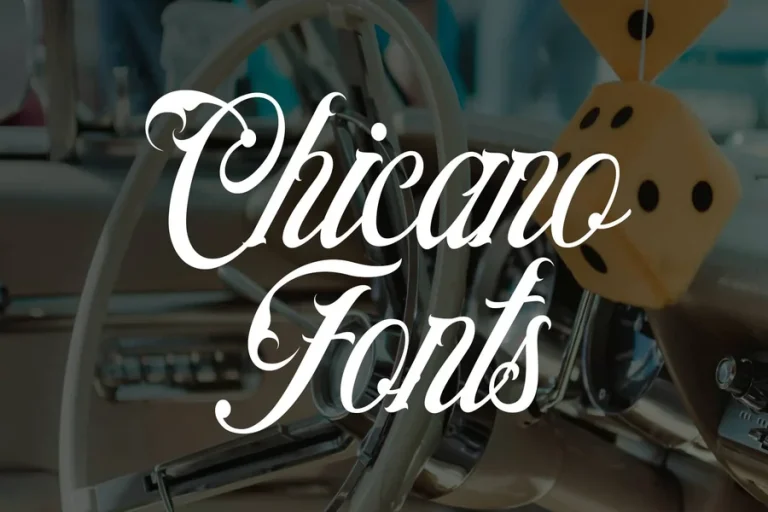
Chicano Fonts for Bold Street Art and Tattoo Style
Chicano fonts carry deep meaning and strong identity. These fonts come from Chicano culture which grew from Mexican American communities in the United States. The style developed through street art lowrider culture tattoos and neighborhood expression. Chicano fonts are more than decoration. They are a voice of pride struggle heritage and belonging.
In early days these fonts appeared in graffiti and handwritten signs. Artists wrote messages on walls cars and notebooks. Over time this writing style became more refined and recognizable. Tattoo artists adopted the look and shaped it into the powerful form we know today.
Chicano fonts often reflect life experiences. They speak about family loyalty respect pain love and survival. Many people choose these fonts for tattoos because the style feels honest and emotional. It shows who they are and where they come from.
The beauty of chicano fonts comes from their balance of elegance and toughness. The letters flow smoothly yet they feel strong. This contrast mirrors the lives of the people who created the style.
Chicano fonts also represent resistance. They reject mainstream norms. They embrace individuality and cultural pride. This makes them timeless and deeply respected within the community.
Why Chicano Fonts Are So Popular Today
Chicano fonts remain popular because they carry soul. In a digital world filled with clean modern fonts people crave authenticity. Chicano fonts provide that. They feel handmade. They feel personal.
Tattoo culture has played a huge role in spreading this style. Artists around the world now study chicano lettering. They admire its emotion and structure. Clients choose chicano fonts to express their personal stories.
Designers also use chicano fonts in logos posters and apparel. The style stands out. It grabs attention. It tells a story without explanation.
Music culture also influences this trend. Album covers street fashion and music videos often feature chicano fonts. This keeps the style relevant and visible.
Social media has helped share this art globally. Artists post their work and inspire others. New generations discover the beauty of chicano fonts and adapt them in modern ways.
The popularity continues because the message remains powerful. People still seek identity and expression. Chicano fonts deliver both.
Visual Features That Define Chicano Fonts
Chicano fonts are known for smooth flowing strokes. Letters often connect creating rhythm and movement. The lines are confident and bold.
Shadows are a key element. They add depth and drama. This makes the text look three dimensional. It creates impact on skin and paper.
Many designs include long extended lines. These give the font elegance and style. They also enhance the emotional feel of the words.
Angles are carefully balanced with curves. This combination creates harmony between softness and strength.
Spacing is tight yet readable. The letters feel united. This unity symbolizes community and connection.
Every chicano font design is unique. Artists customize each piece. This ensures the message fits the person who wears it or the project it supports.
Where Chicano Fonts Are Used Most
Tattoos are the most famous home of chicano fonts. Names dates prayers and life quotes are often written in this style. The font turns words into permanent personal art.
Street art also celebrates this style. Murals walls and signs across cities display chicano lettering. These works honor culture and history.
Fashion brands use chicano fonts on shirts jackets and hats. The style adds attitude and authenticity.
Graphic designers apply chicano fonts to posters flyers and album covers. The visual impact draws people in instantly.
Car culture especially lowriders often features chicano lettering. The font decorates windows hoods and trunks. It becomes part of the car identity.
Even digital content now uses chicano fonts for social media and branding. The style keeps evolving while staying true to its roots.
How Artists Create Chicano Font Designs
Artists begin with sketching. They draw letters by hand. They adjust shapes until the flow feels right.
They consider the meaning of the words. Emotion influences style. A memorial tattoo looks different from a pride message.
Next they refine the lines. They add shadows and highlights. This gives life to the design.
Placement is important. On skin the font must follow body movement. On paper it must fit the layout.
Tools matter. Tattoo machines brushes and digital pens all require skill. Artists practice for years to master this lettering.
Every finished piece reflects patience dedication and respect for tradition.
The Lasting Power of Chicano Fonts in Art
Chicano fonts continue to inspire because they represent real lives and real stories. They are not trends. They are traditions.
New artists bring fresh ideas. Yet the heart of the style stays the same.
Chicano fonts remind us that art comes from experience. It grows from community. It speaks through generations.
Final Thought
Chicano fonts are more than letters. They are history written in ink. They hold pride pain hope and love. Each curve tells a story. Each stroke carries emotion. When someone chooses chicano fonts they choose to honor culture and identity. This style will continue to live in tattoos art streets and hearts for many years to come.